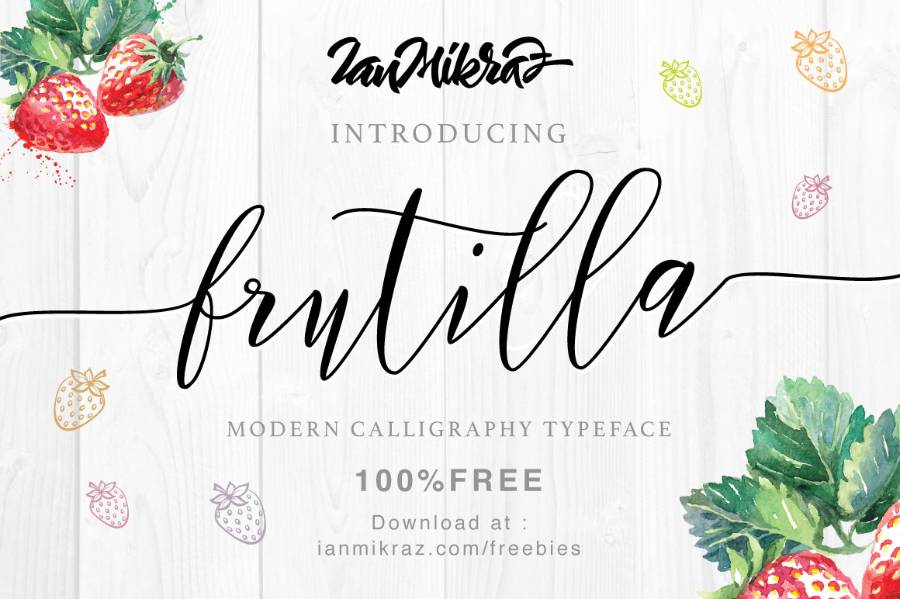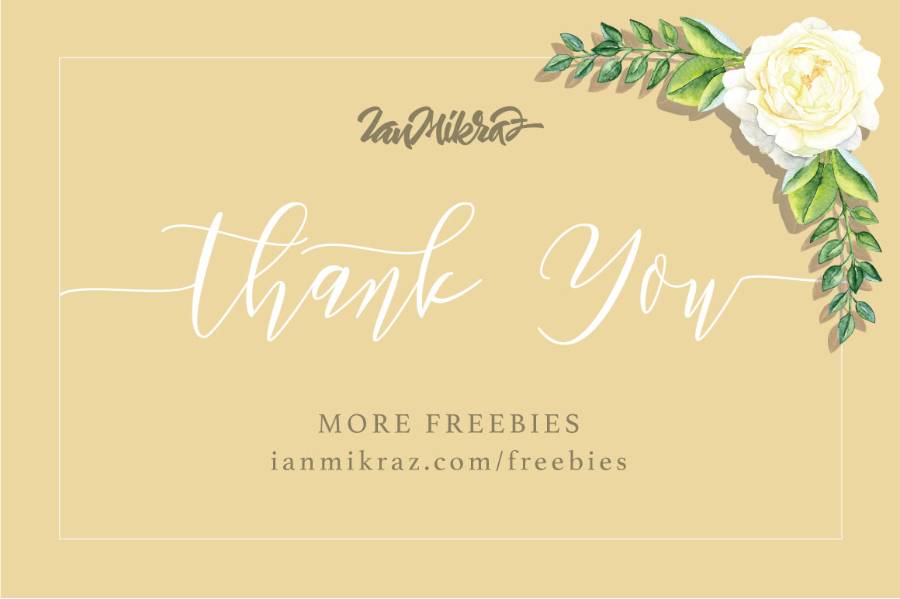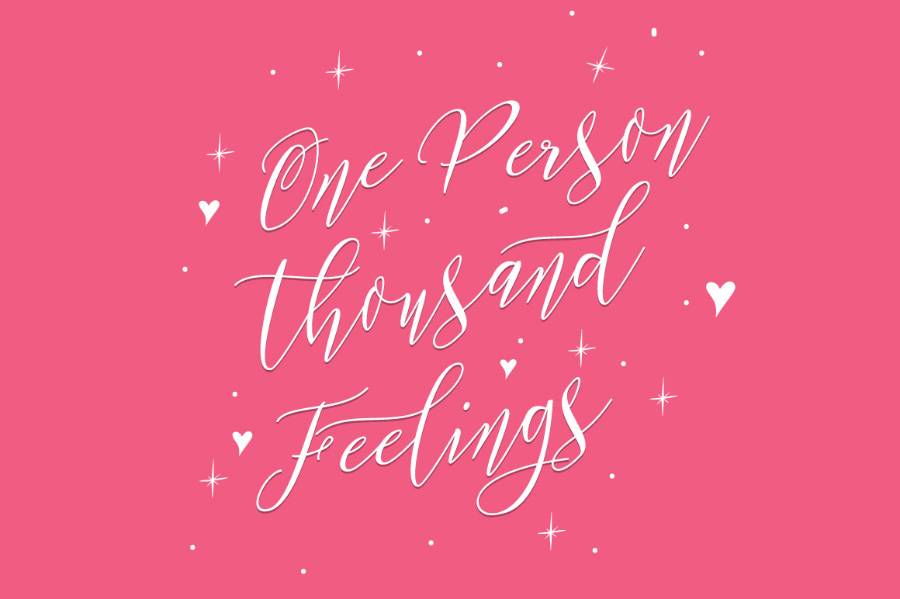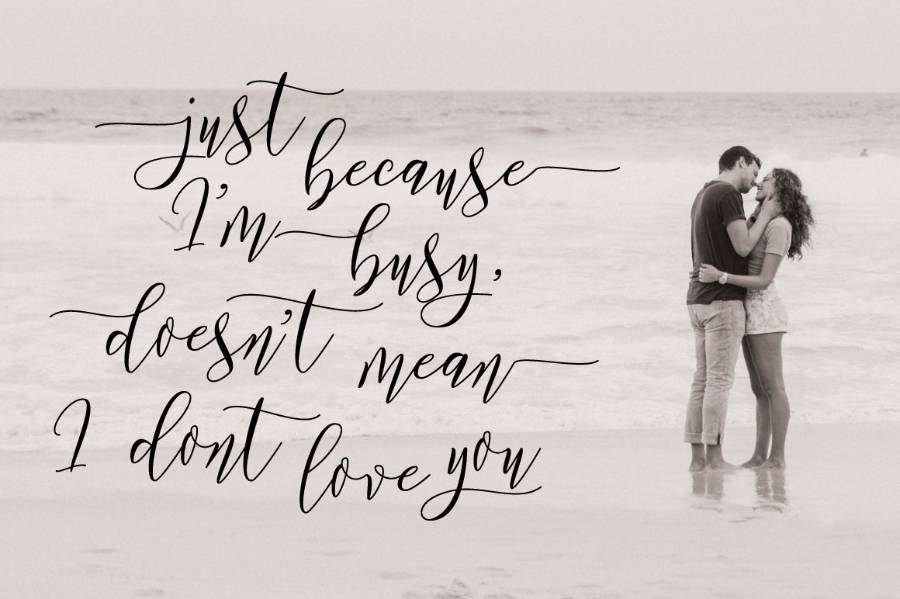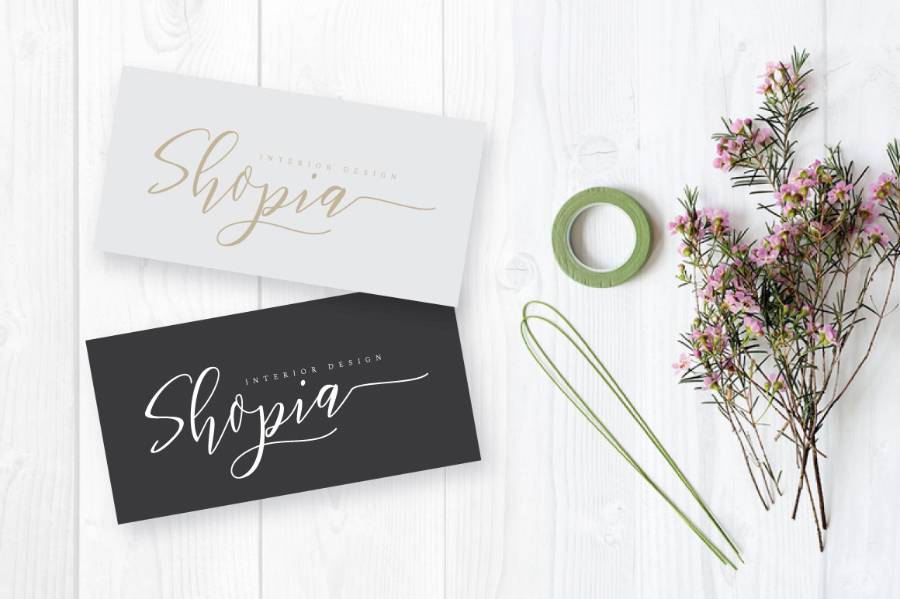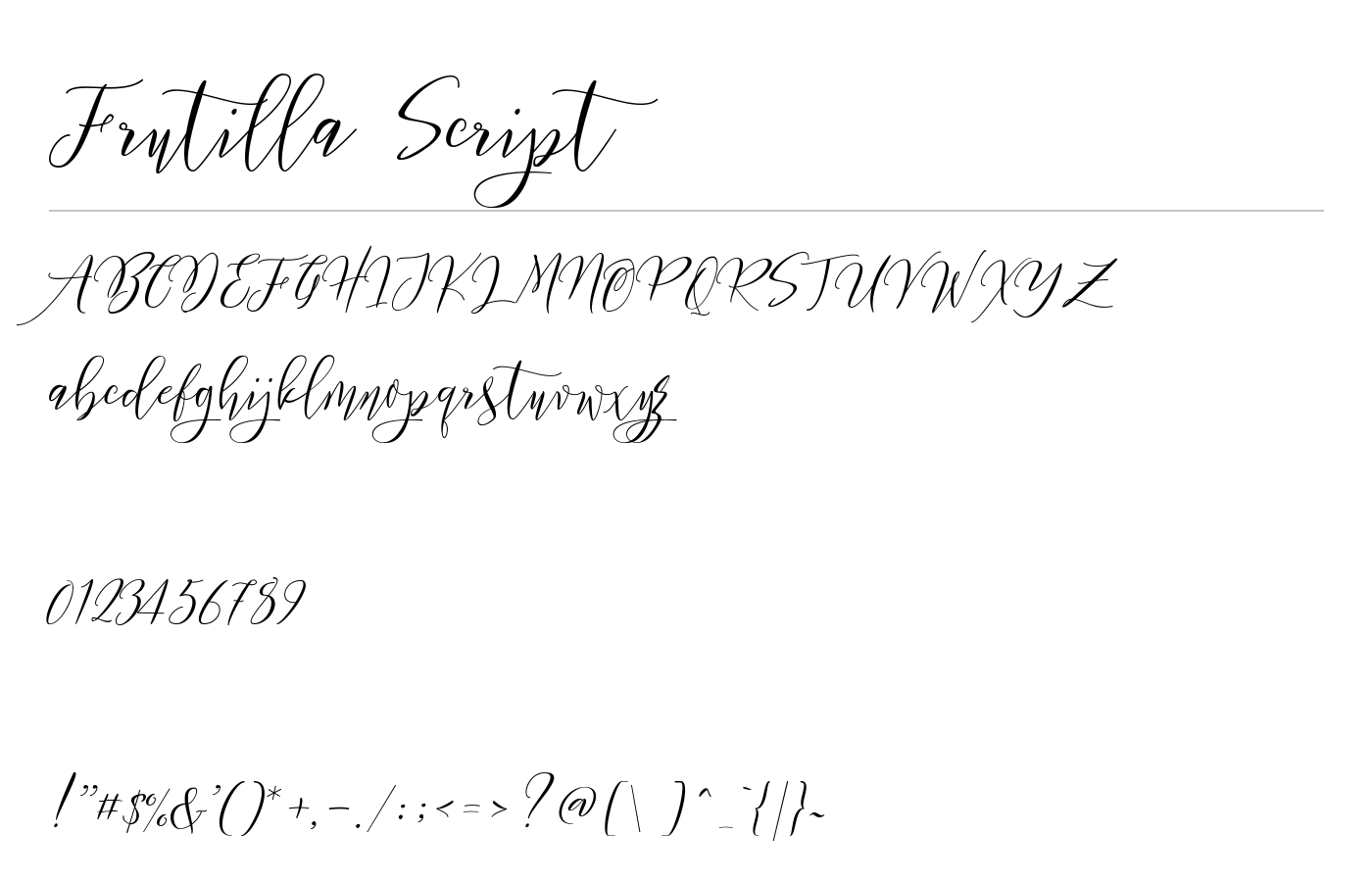
Fruitilla Modern Script is a delicate and elegant typeface with flowing, handwritten letterforms that evoke a sense of sophistication and charm. Its fine strokes and stylish swashes create a graceful, airy feel, making it perfect for luxury branding, wedding invitations, and feminine design projects where a refined and personal touch is desired. This font combines a modern flair with classic script elegance, ideal for headlines, logos, and decorative text.
Fruitilla Modern Script Typeface
About Fruitilla Modern Script Typeface
| Font family | Fruitilla Modern Script Typeface |
| Designer | Ianmikraz |